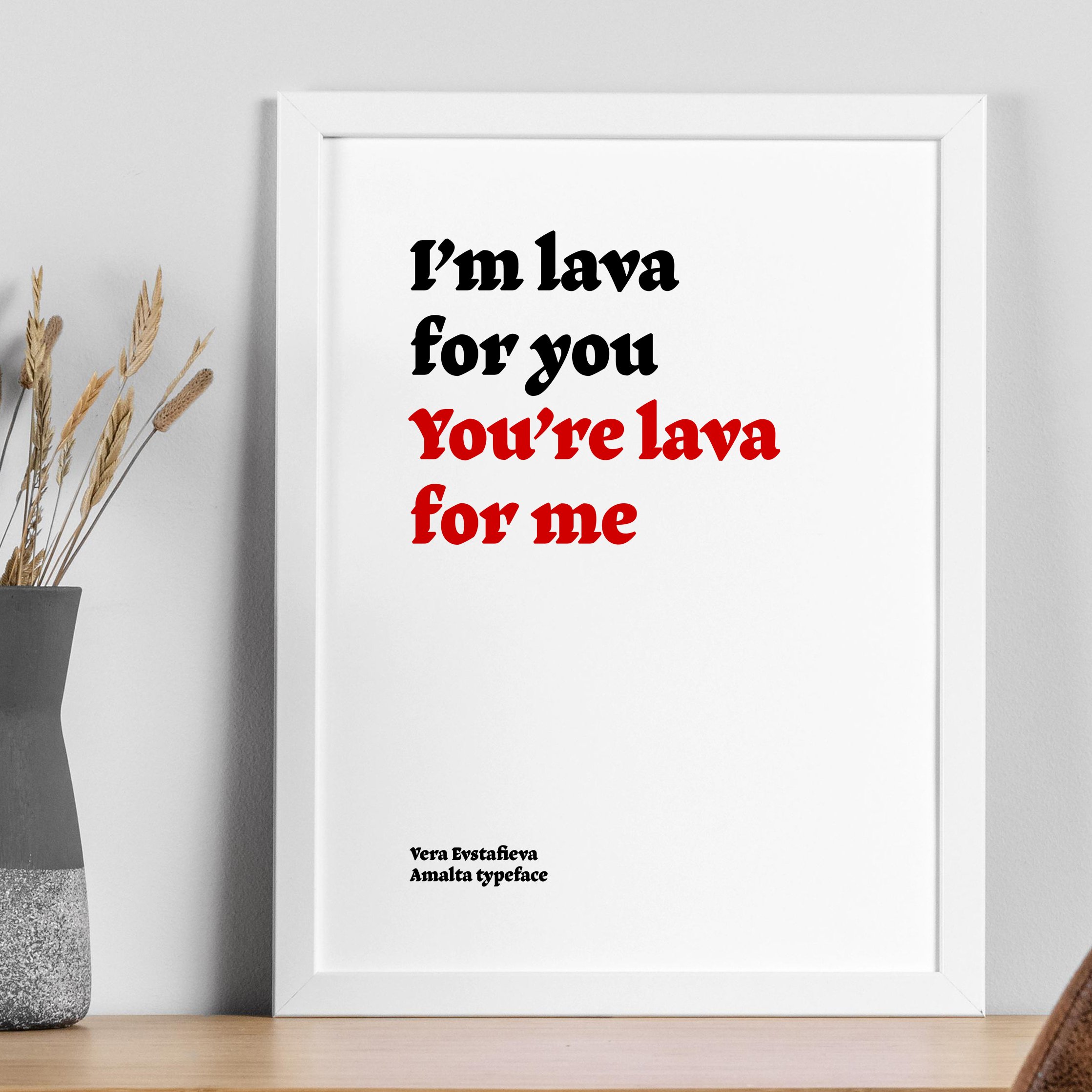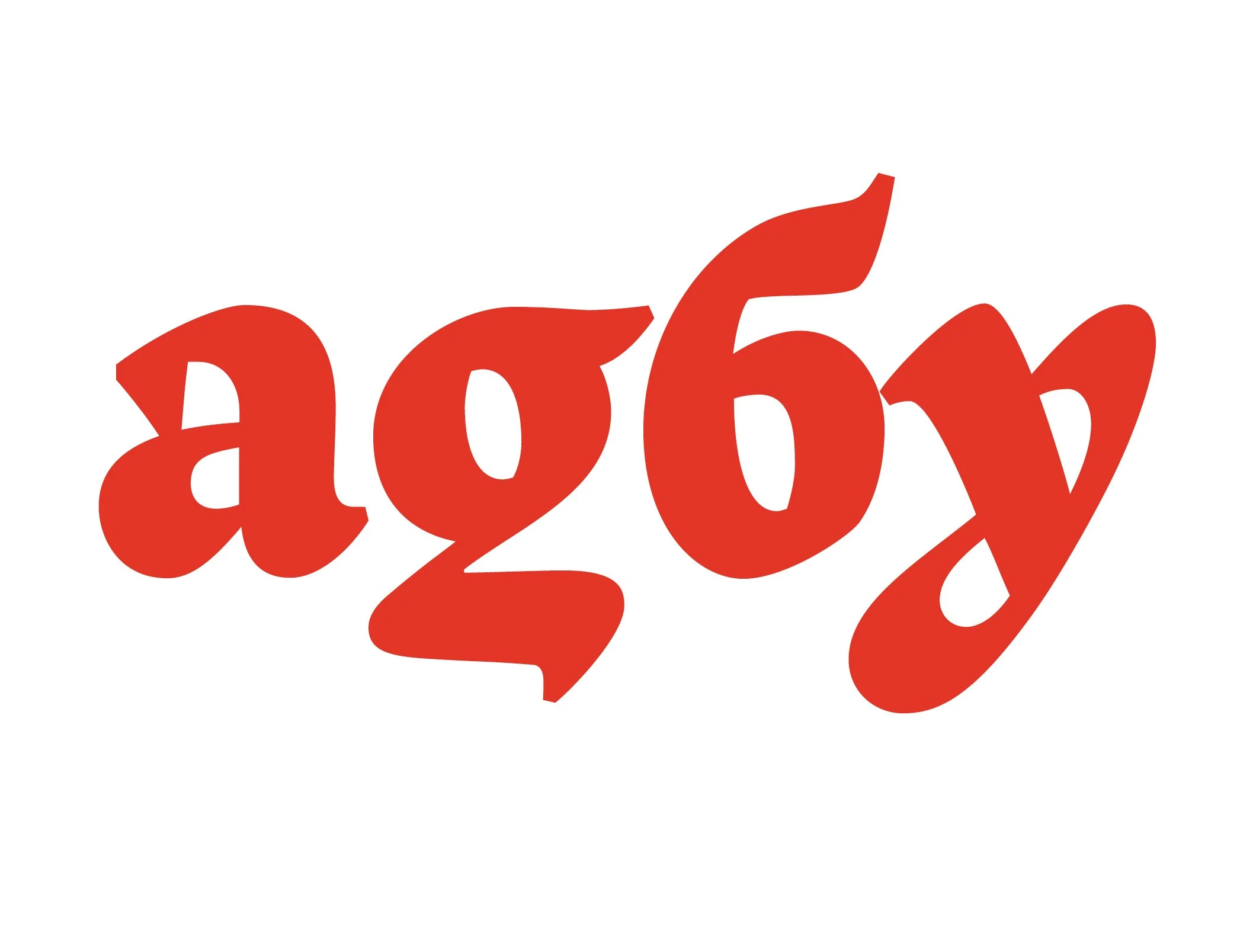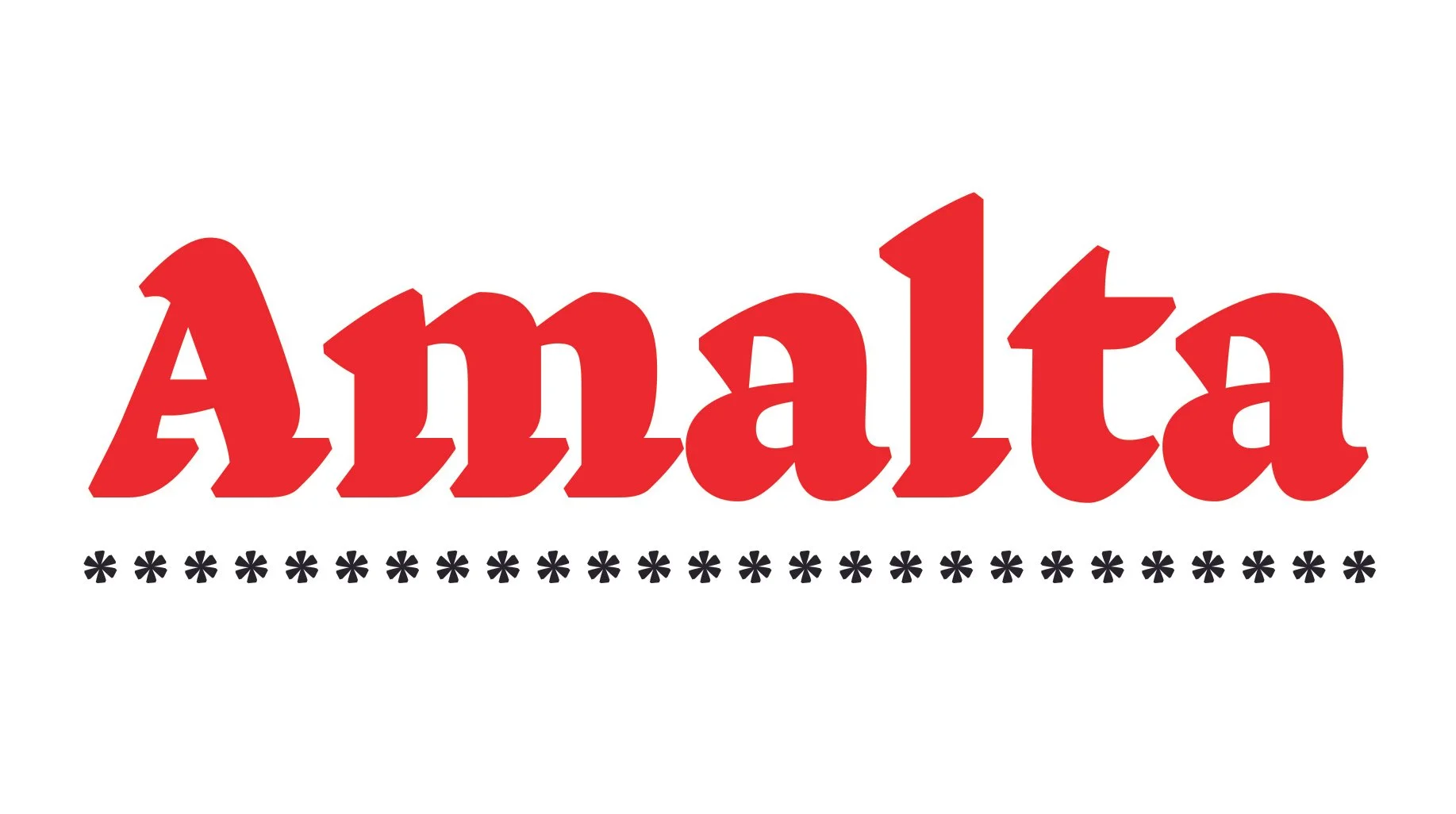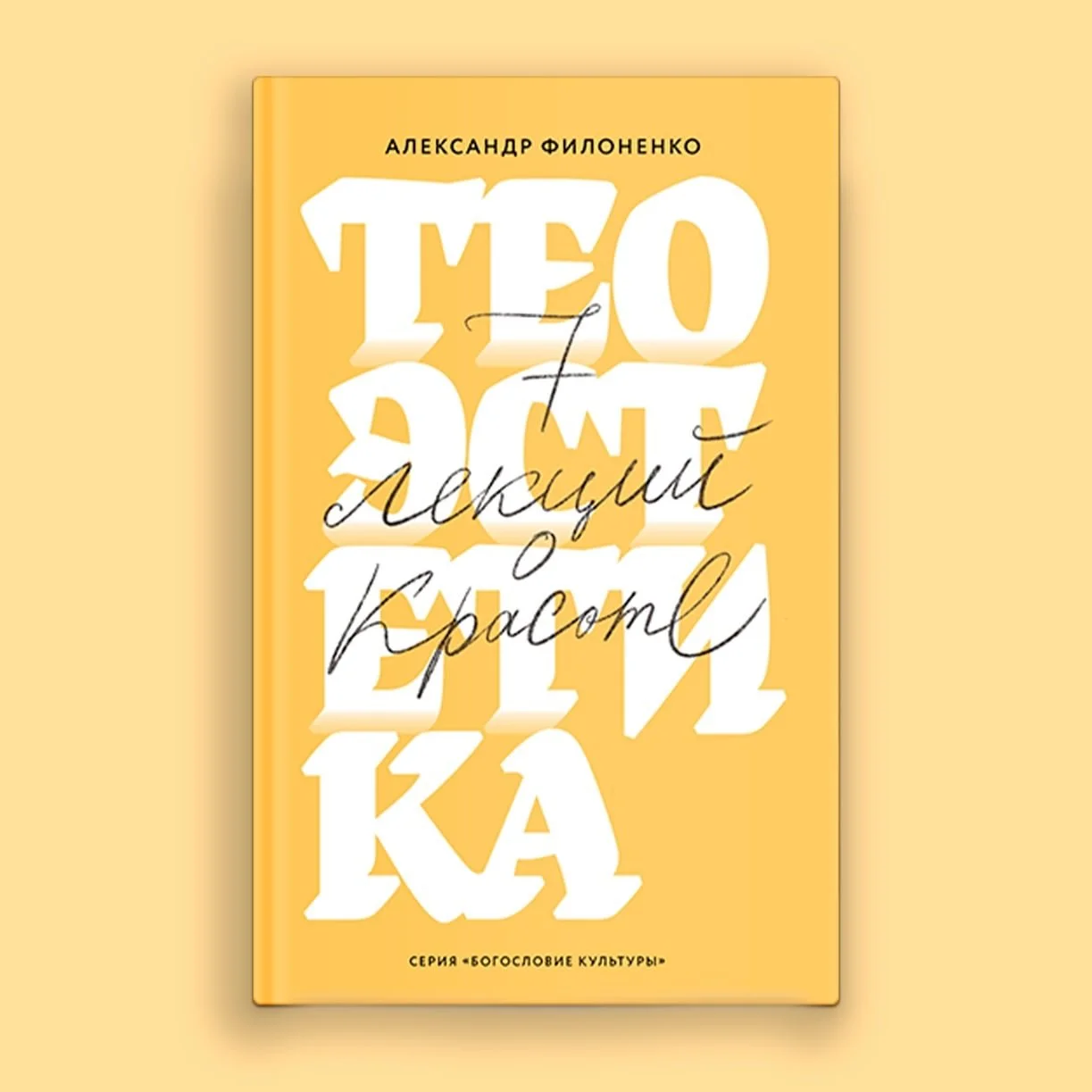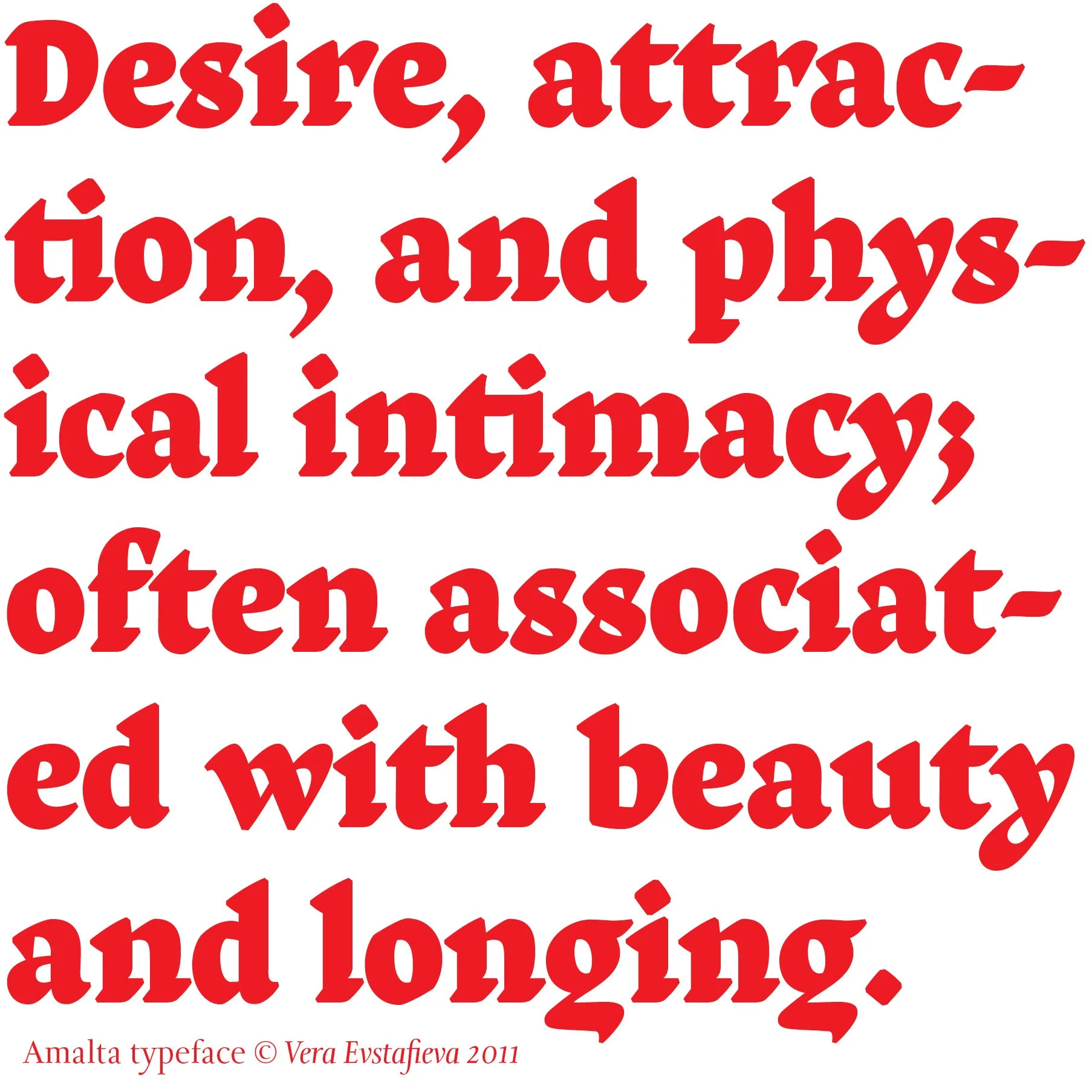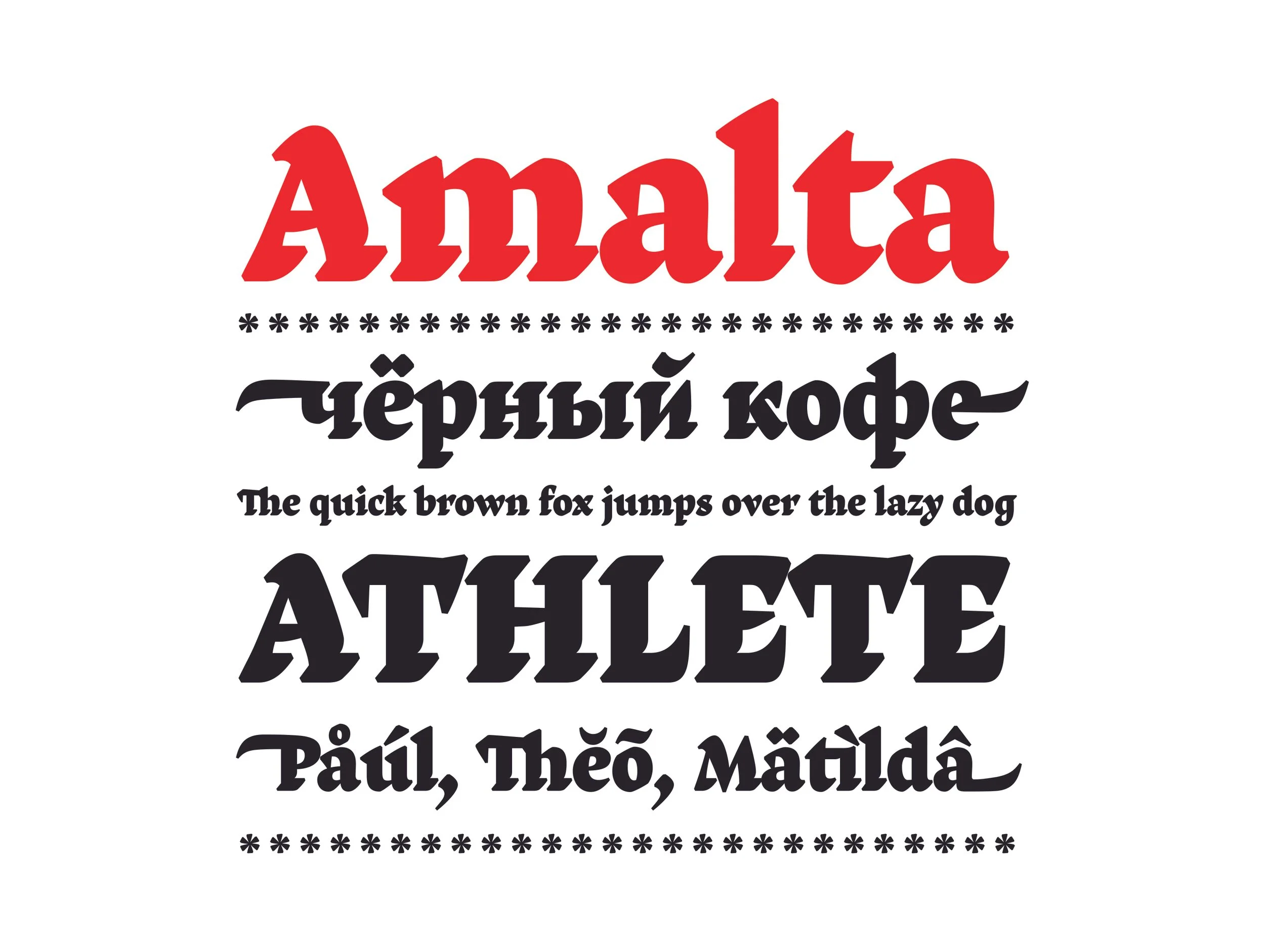
Amalta typeface was designed by Vera Evstafieva in 2010, it became a winner in prestigious TDC2 competition in 2011 and Modern Cyrillic contest in 2014.
Amalta was conceived on the basis of Vera’s own calligraphic style, written with the flat brush. Turned into typographic shapes, letterforms are steady and strong.
Overlapping strokes and terminals are characteristic for Amalta. It features powerful black shapes and vivid counterparts.
Swash alternates in both Latin and Cyrillic have their historical roots in Medieval scripts like Civilité and Skoropis, and others. Amalta was recently produced as a wood type and is used for letterpress printing as well as for digital typography.
Amalta is perfect for branding, logotypes, posters, book cover designs, and much more.